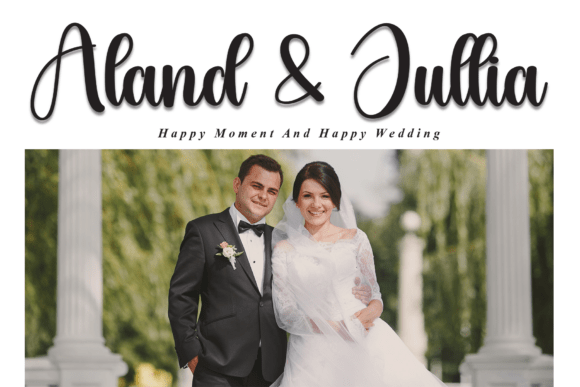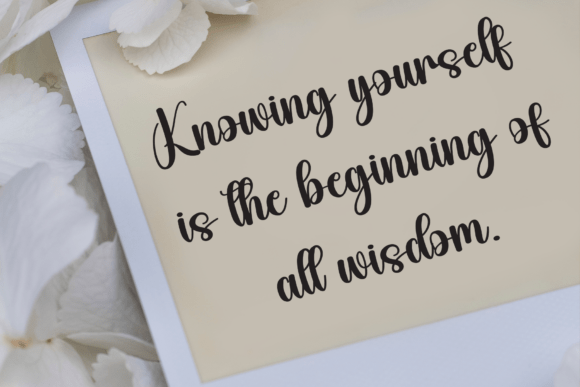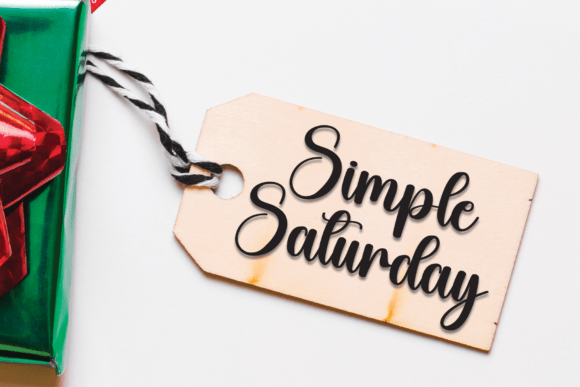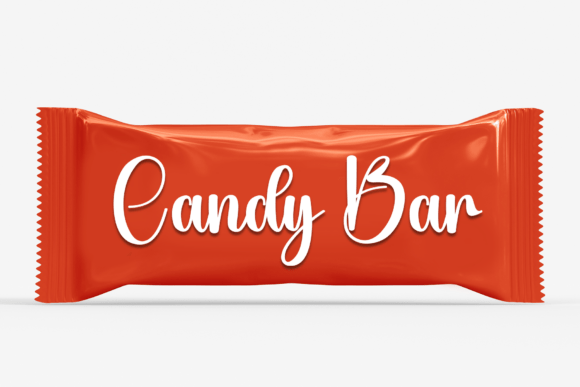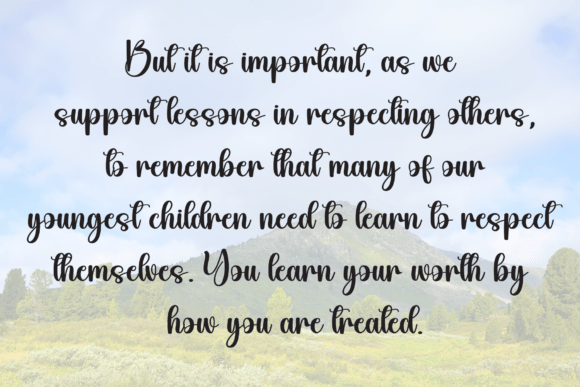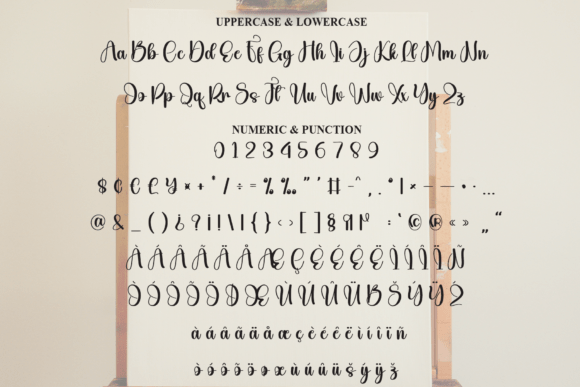
The Perfect Blend of Elegance and Playfulness: A Deep Dive into Canvas Font
Have you ever been in the middle of a design project, and suddenly, you just can’t seem to find the right font? I recall a particularly frustrating experience while working on a branding project for a boutique bakery. My client wanted a logo that exuded warmth, sophistication, and a dash of whimsy. After scouring through countless font libraries, I stumbled upon Canvas – a stylish handwritten script font that instantly captured the essence of the brand. In this article, we’ll explore the ins and outs of Canvas Font, and how it can elevate your designs.
An Honest Review of Canvas Font
What I Love About Canvas Font
- ✨ Fluid strokes and charming curves: Canvas boasts a beautiful, handwritten aesthetic that’s perfect for adding a personal touch to your designs.
- ✅ Versatility: This font is incredibly versatile and can be used for a wide range of projects, from logos and packaging to invitations and more.
- 💫 Elegant yet playful: Canvas strikes the perfect balance between modern elegance and playfulness, making it an excellent choice for designers looking to add some whimsy to their work.
While Canvas Font is an excellent choice for many design projects, there are a few things to keep in mind: ⚠️ Limited use in body text: Due to its script nature, Canvas may not be the best choice for lengthy body text. It’s best suited for headings, titles, and short paragraphs. 🤔 Some characters may require manual kerning: As with any font, you may need to adjust the kerning of certain characters to achieve optimal results.
- Explore the Glyphs panel to access alternative characters, ligatures, and stylistic sets.
The Story Behind Canvas Font
While the true story behind Canvas Font may be unknown, it’s easy to imagine a designer who was inspired by the fluidity of handwritten scripts and the elegance of modern typography. Perhaps they were on a creative retreat, surrounded by art supplies and vintage typewriters, when the idea for Canvas Font was born. Whatever the story, it’s clear that Canvas Font is a labor of love that brings a personal touch to every design.
Q: What type of projects is Canvas Font best suited for?
A: Canvas Font is ideal for logos, packaging, invitations, and any project that requires a touch of elegance and playfulness.